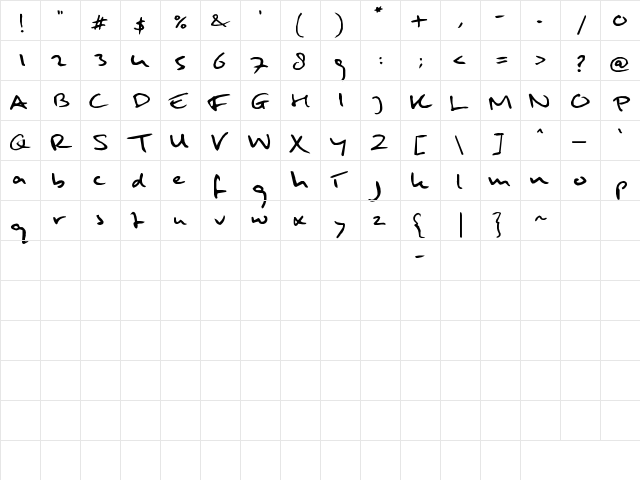
Mulder's handwriting Regular Font Preview
Mulder's handwriting Regular
Mulder's handwriting Regular Font Details
Design Context for Mulder's handwriting Typeface
Mulder's handwriting flows with the natural rhythm of handwritten lettering, making it ideal for designs that call for warmth and personal expression.
Font Pairing: Combine Mulder's handwriting with a simple geometric sans for maximum contrast — the tension between flowing curves and clean structure is a classic typographic pairing.
Pro Tip: Pair Mulder's handwriting with a clean sans-serif for supporting text. The contrast between fluid script and geometric structure creates an elegant typographic hierarchy.